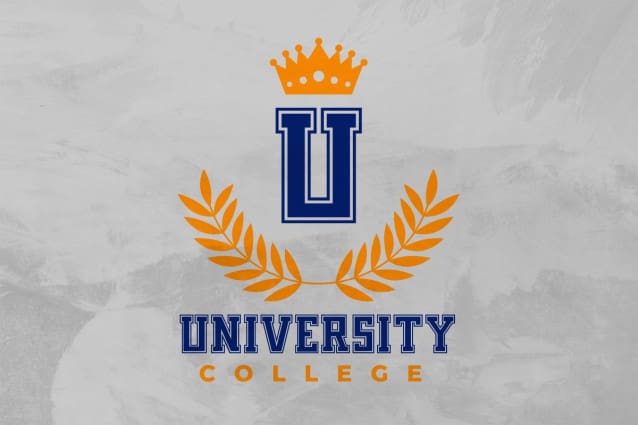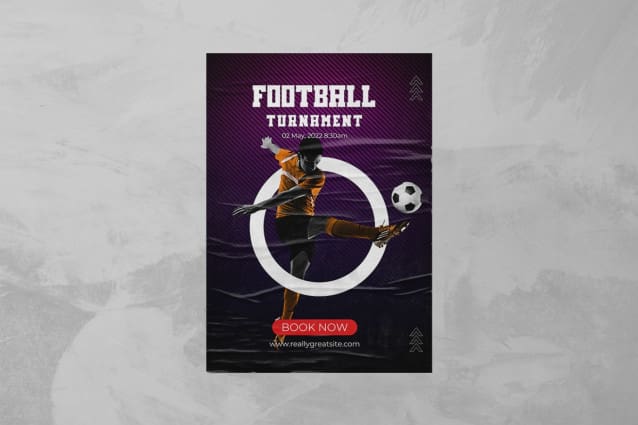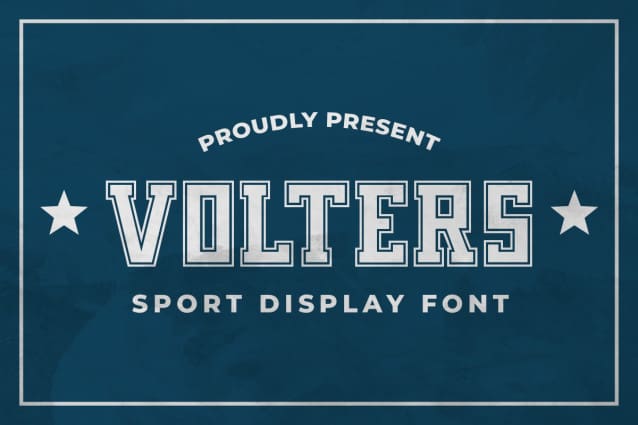
Volters Font
Volters Font – Modern Display Font provides a new different look from the general display fonts. Volters Modern Display Font is a display font that looks clean, simple, and modern. It can also use as a bold font and modern font.
Volters Font – Modern Display Font has many matches when combined with some products. This font is the best font for sports equipment, like jerseys, T-shirts, Bags, etc. Fashion brand tags will be compatible with this typeface. There is no need to add excessive pictures and ornaments because Volters Modern Display Font has presented its identity where a simple yet modern impression radiates. Volters Font – Modern Display Font is in the list of typefaces that can use as digital font and print fonts. This font can use as a title that appears first in intro videos that catch the viewer’s attention at a first impression.
Posters and magazine covers are especially appropriate when using the Volters Font – Modern Display Font. This is because even though this font is a serif typeface, it can be seen clearly and can be distinguished by each letter. So this font is included in the legible font.